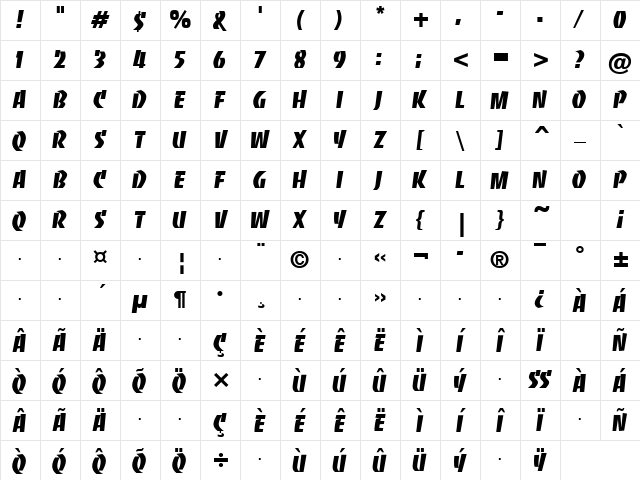
Java Regular Free Font
Java Regular
Design Context for Java
Java is a composed and adaptable typeface that performs quietly and consistently across a wide range of design contexts.
Pro Tip: Use Java in both headline and body roles to test its range before committing to a single application.